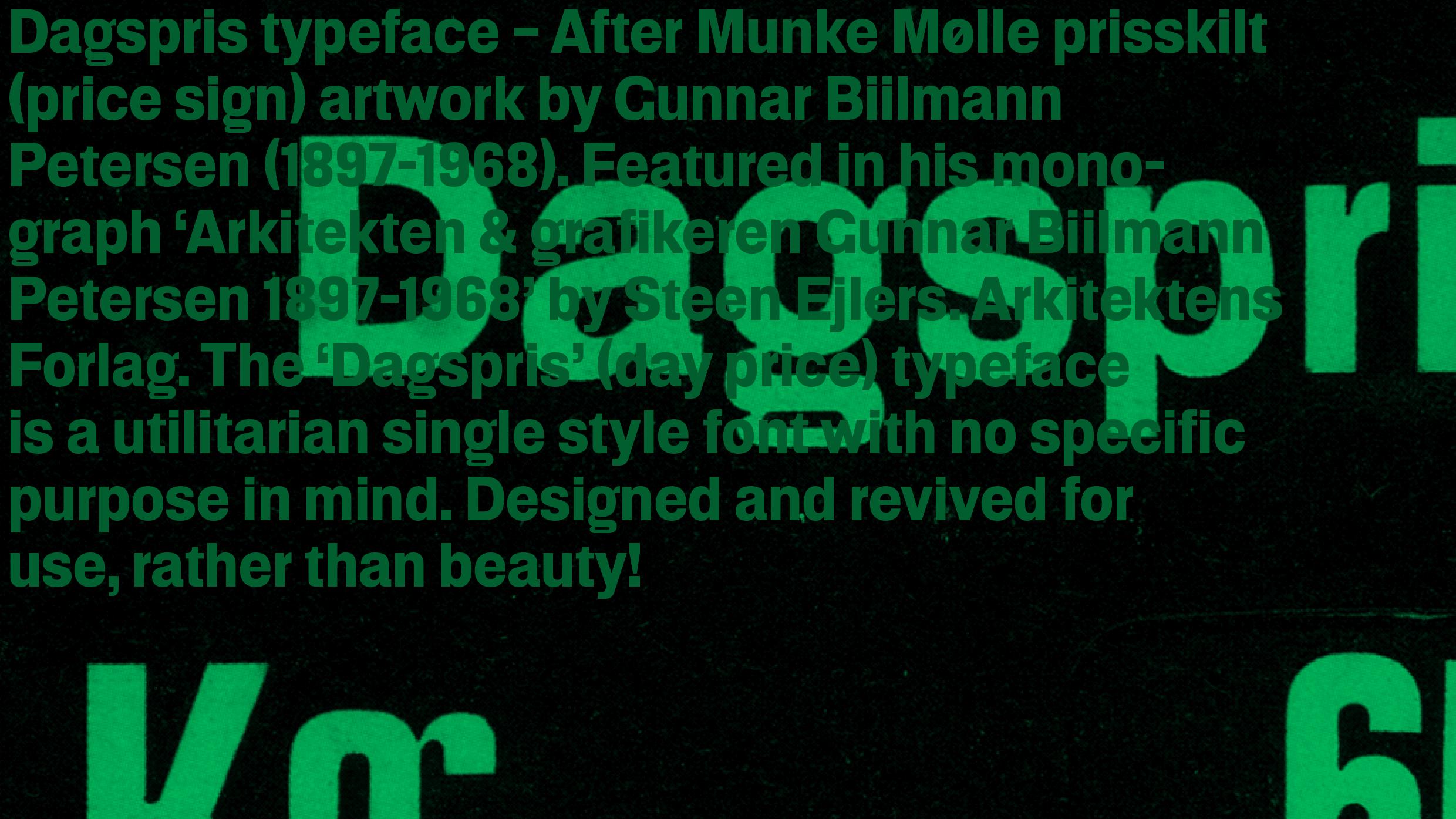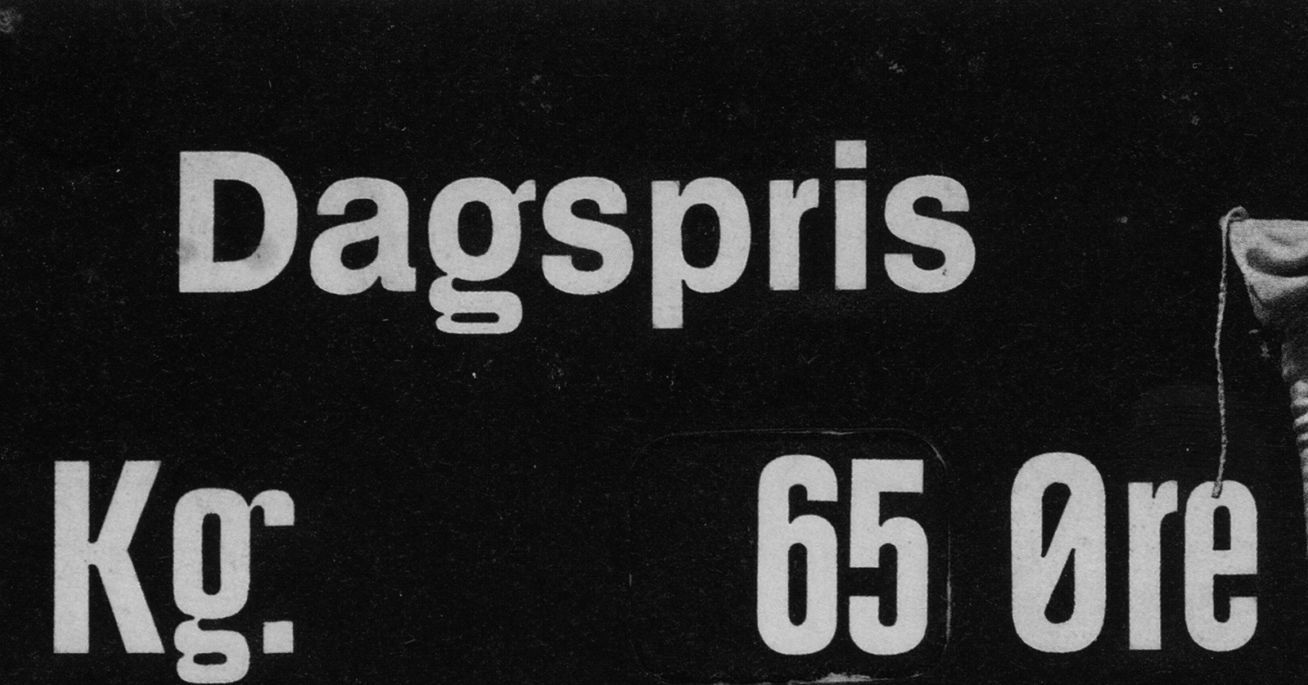
Dagspris Regular
Dagspris is a utilitarian single style typeface inspired by a handcrafted price sign created by Danish architect and designer Gunnar Biilmann Petersen (1897-1968) for Munke Mølle. Revived with care and designed for everyday use.
| Font category: | Sans |
| Designer: | Henrik Kubel |